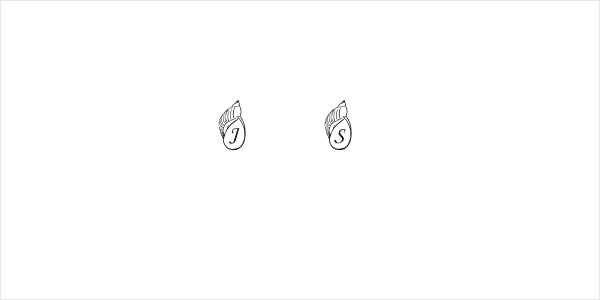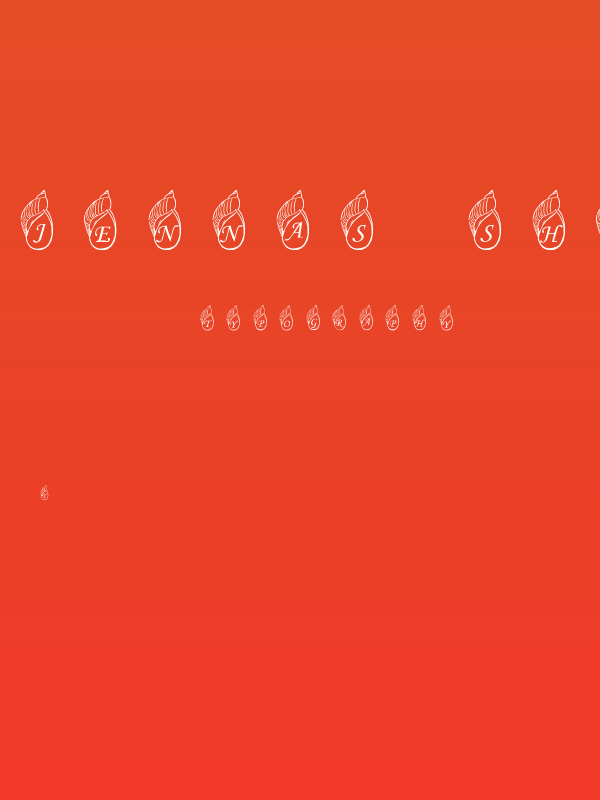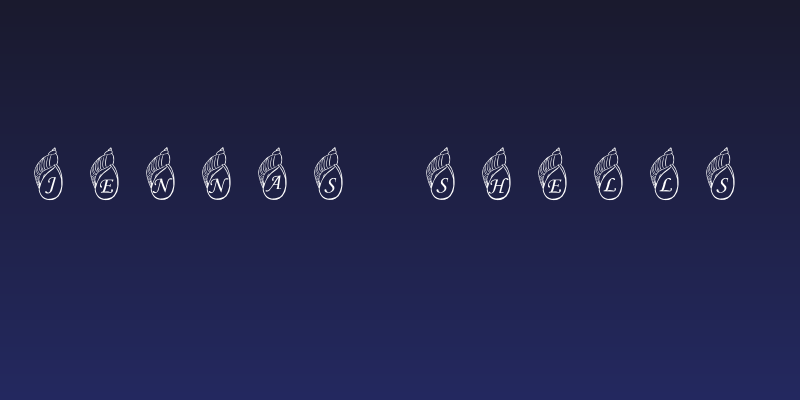
Jenna's Shells Font
Jenna's Shells Description
This font features a unique and decorative style, with each letter encased in a shell-like design. The letters themselves are serif, adding a classic touch to the overall whimsical appearance. The intricate shell motif surrounding each character gives the font a playful and artistic flair, making it stand out for creative projects. The serif letters are elegantly crafted, with smooth curves and a balanced structure that complements the ornate shell design. This combination of classic serif elements with decorative embellishments makes it suitable for projects that require a touch of elegance and creativity.
| Use Case | Headlines, Logos, Decorative text |
| Proposed Projects | Ideal for beach-themed invitations, creative branding, artistic posters, and decorative headings. |